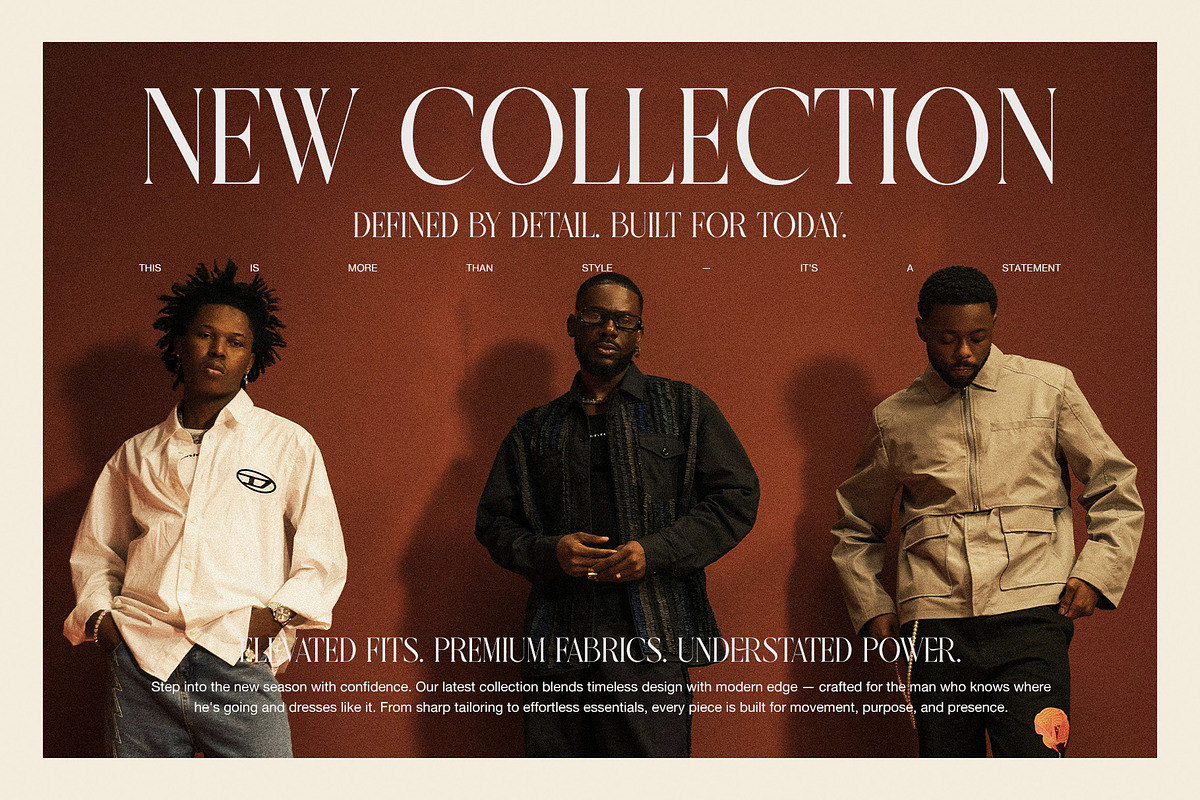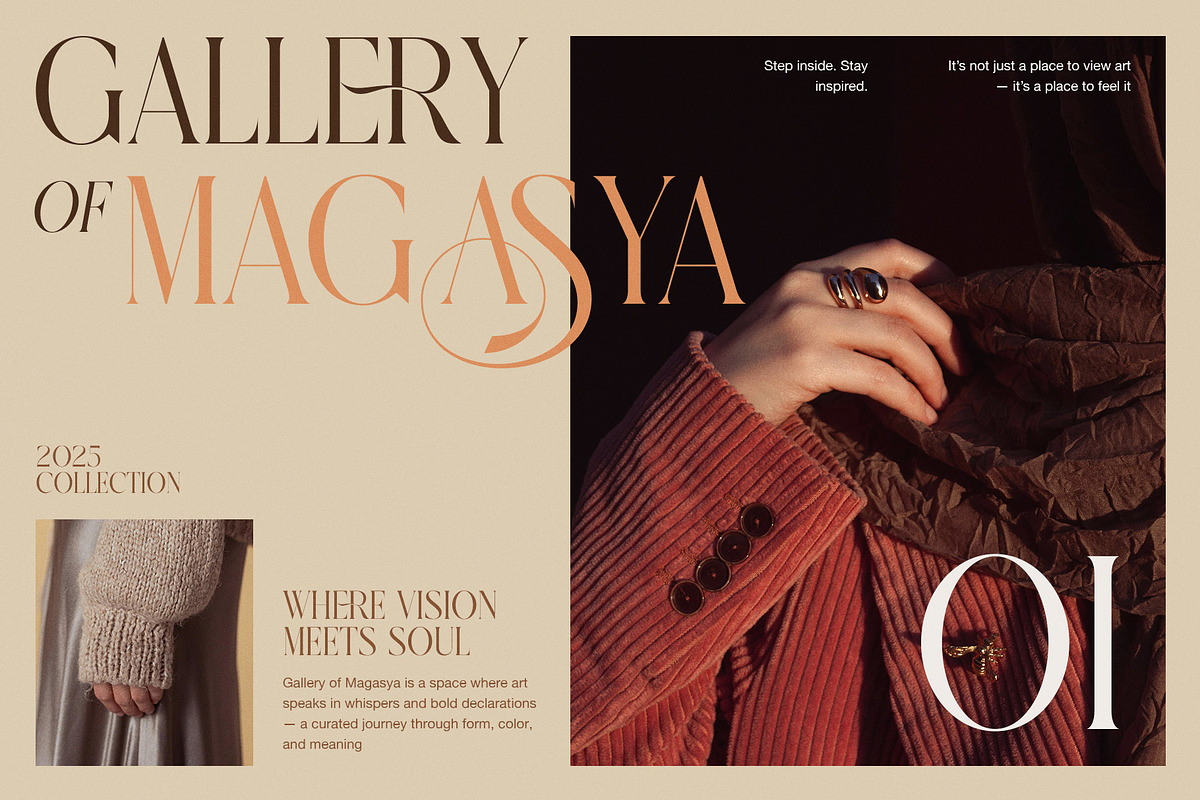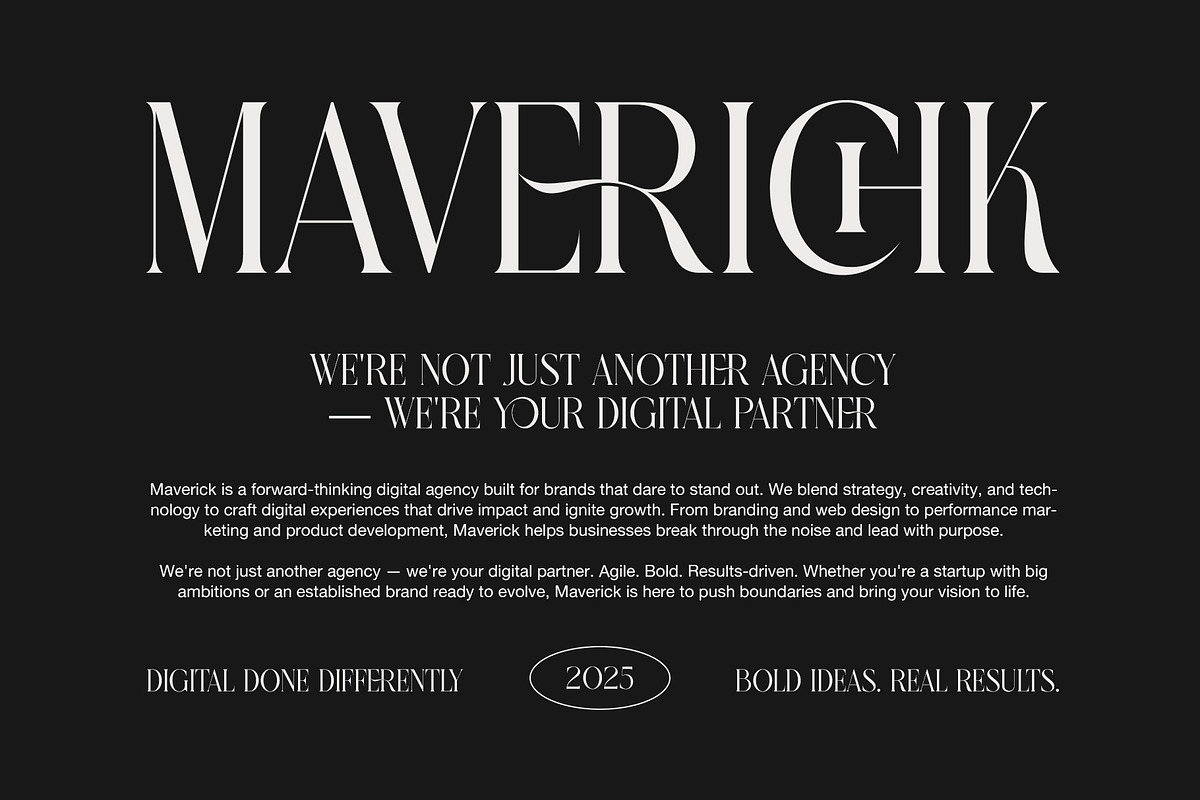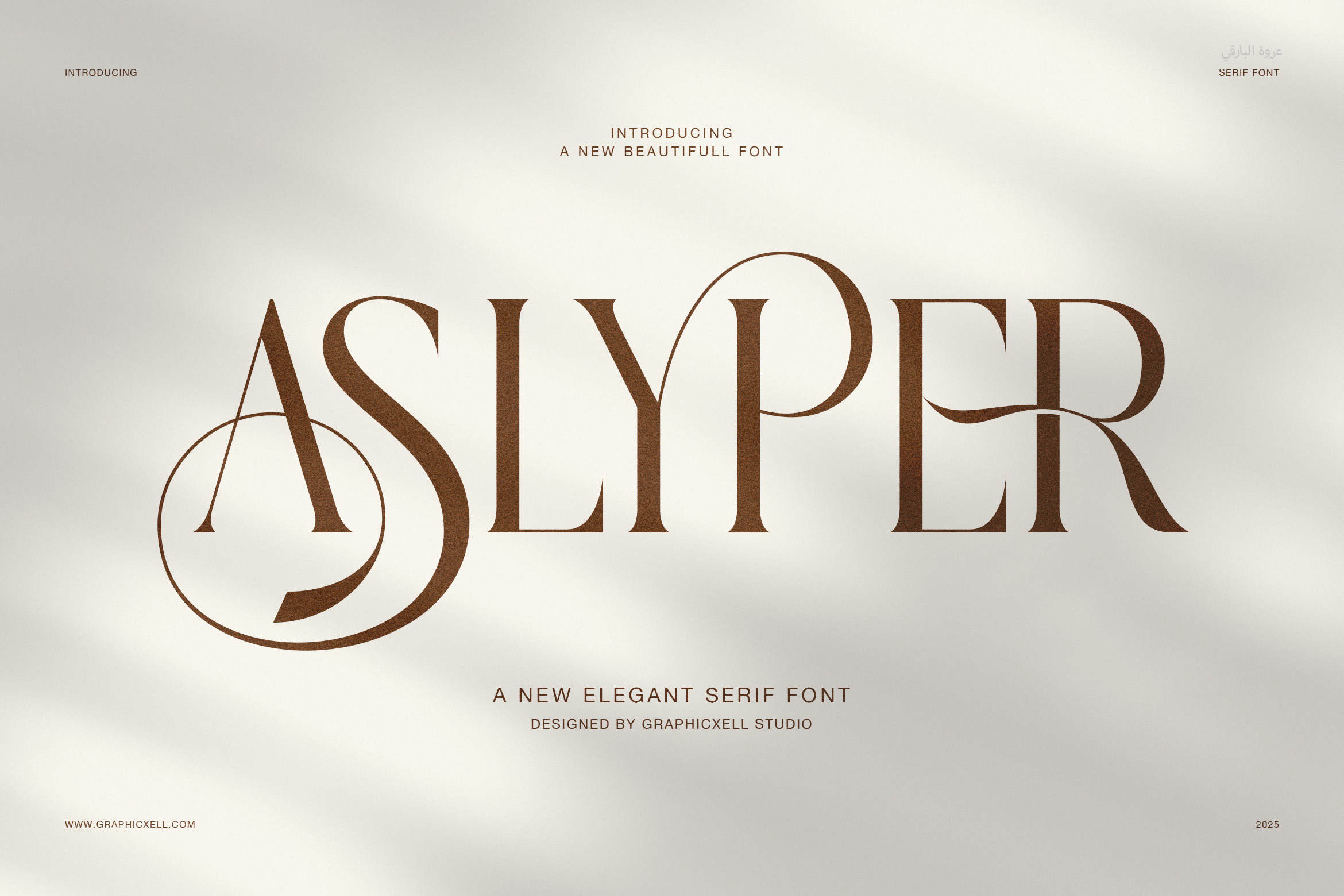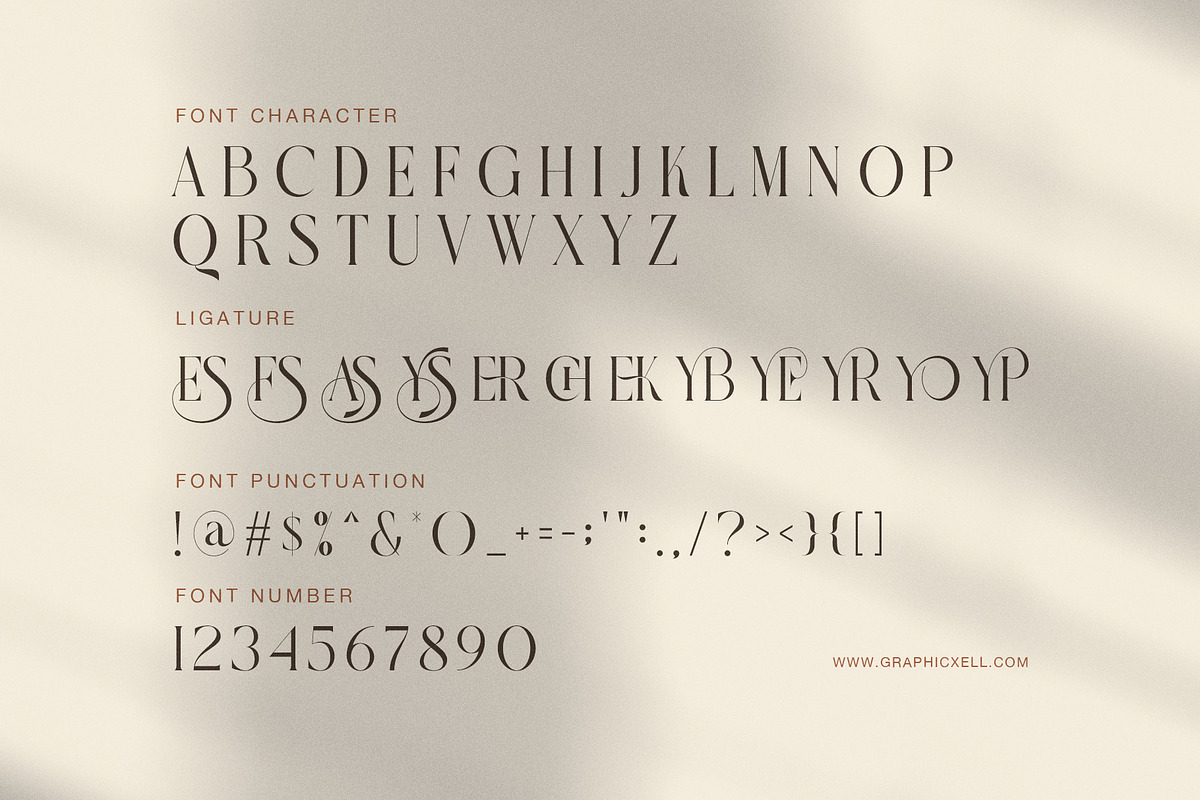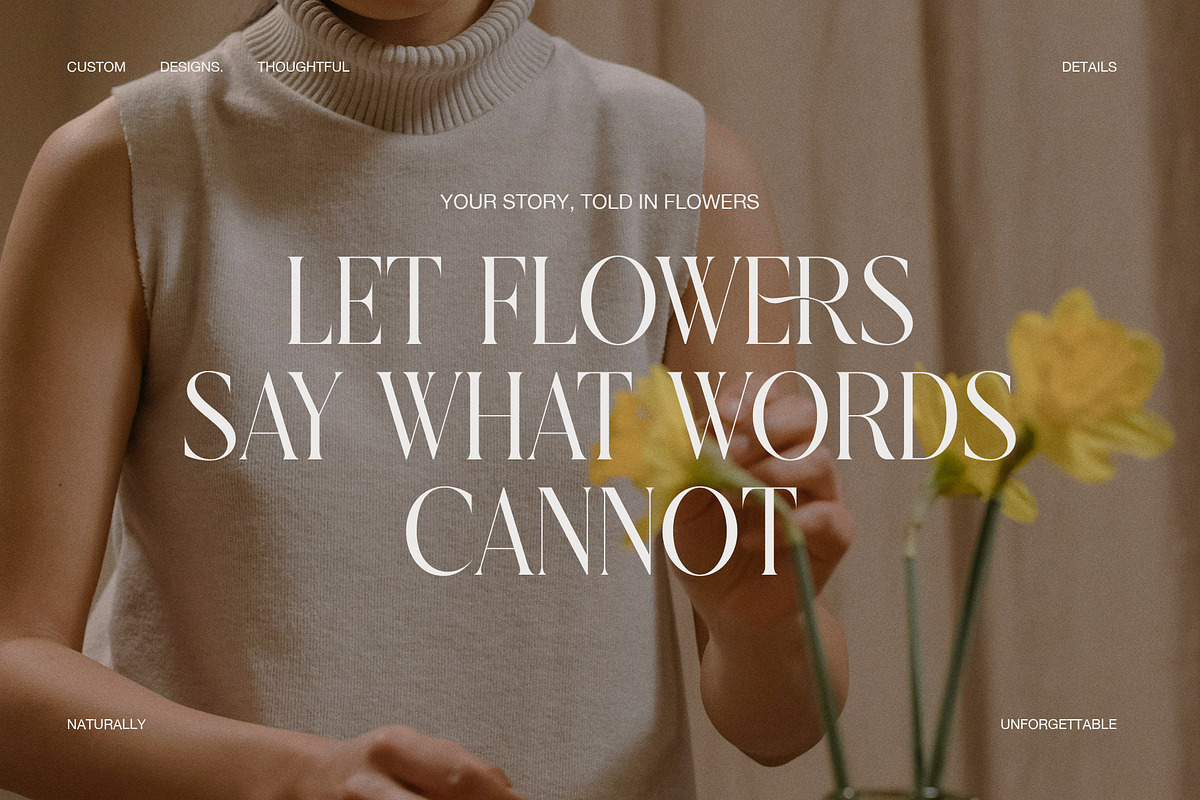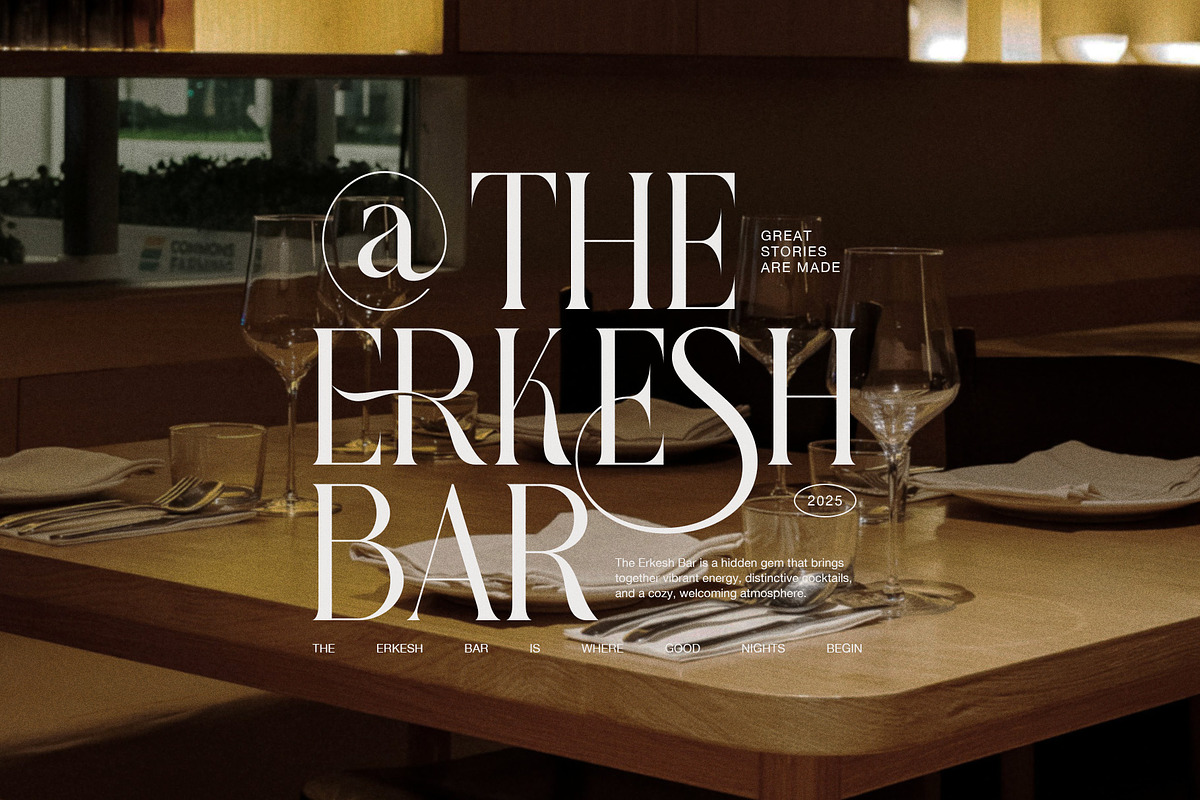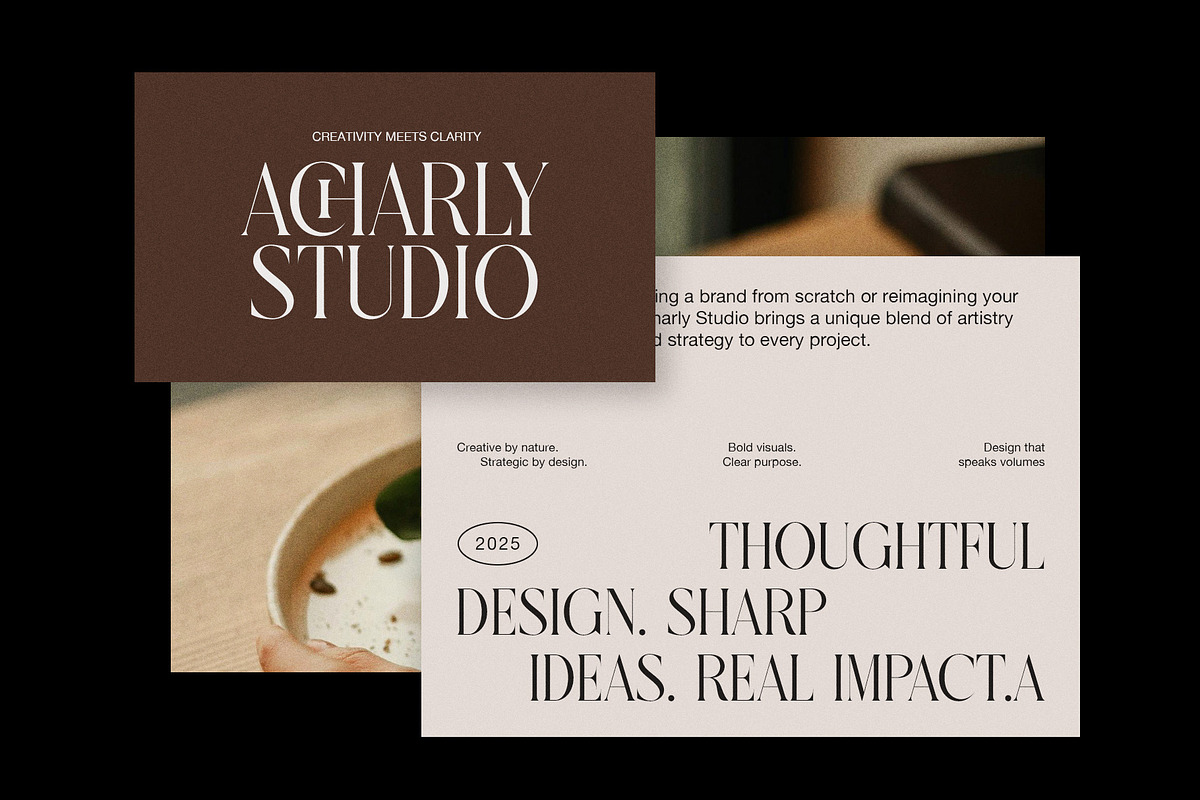
Aslyper Elegant Serif Font
Meet Aslyper Elegant Serif Font, a refined serif typeface that blends luxury and clarity in perfect balance. It’s ideal for designers who want elegance with modern appeal. Because of its graceful letterforms and smooth proportions, every project looks polished and timeless.
Aslyper works beautifully across many styles. Whether you design logos, magazines, or invitations, this serif font gives your layout a luxurious feel. Moreover, its structure creates natural flow and easy readability, making it suitable for both print and digital media.
Key benefits of Aslyper Elegant Serif Font:
Elegant contrast and delicate curves that express class
Consistent spacing for professional visual balance
Excellent legibility even in small or large sizes
Perfect for fashion, branding, and editorial design
Because of its strong yet graceful lines, Aslyper adds confidence to your text. Each serif highlights precision and style, while every curve shows thoughtful craftsmanship. In addition, this font adapts easily to various themes—from minimalist branding to luxurious packaging.
You can pair Aslyper with a clean sans-serif to create sophisticated contrast. As a result, your work will look fresh, balanced, and distinct. Furthermore, its timeless shape keeps your design relevant for years.
If you value premium quality, Aslyper will exceed your expectations. It helps brands appear trustworthy and stylish without trying too hard. Plus, it’s simple to apply, which means you’ll save time while creating elegant compositions.
In short, Aslyper Elegant Serif Font offers style, confidence, and timeless appeal. It brings luxury to every word, turning simple designs into works of art. Choose Aslyper, and let your typography speak with elegance and strength.